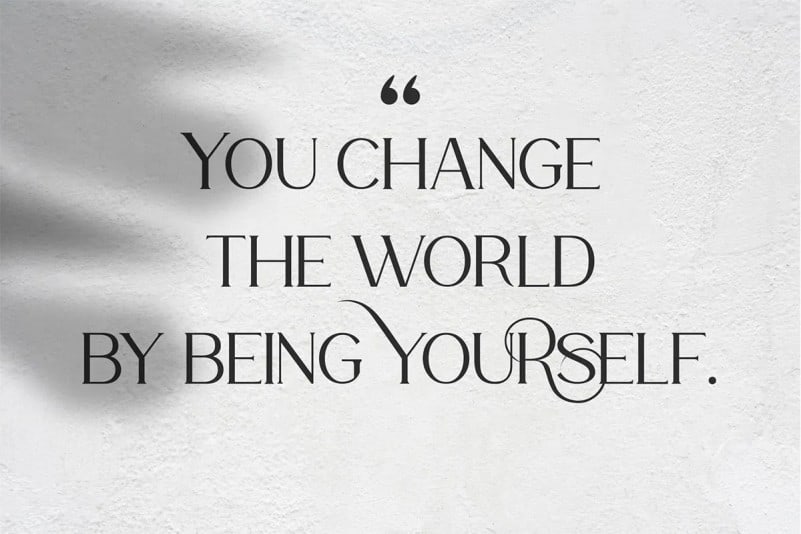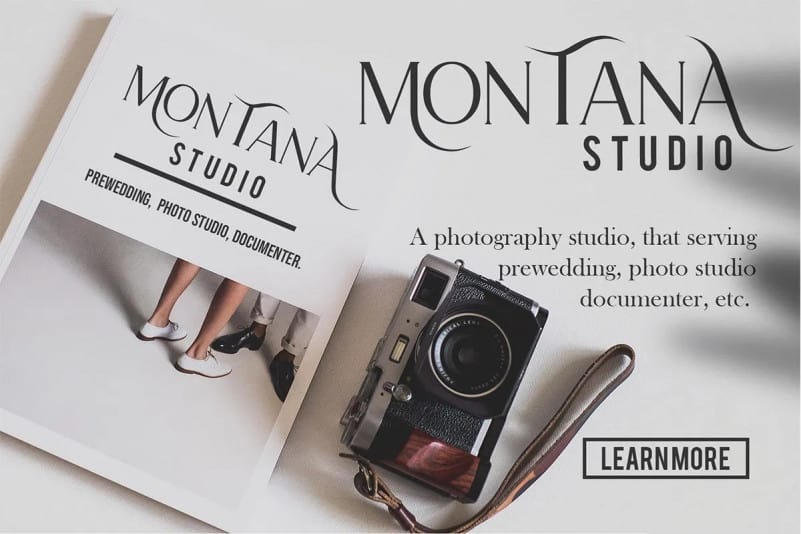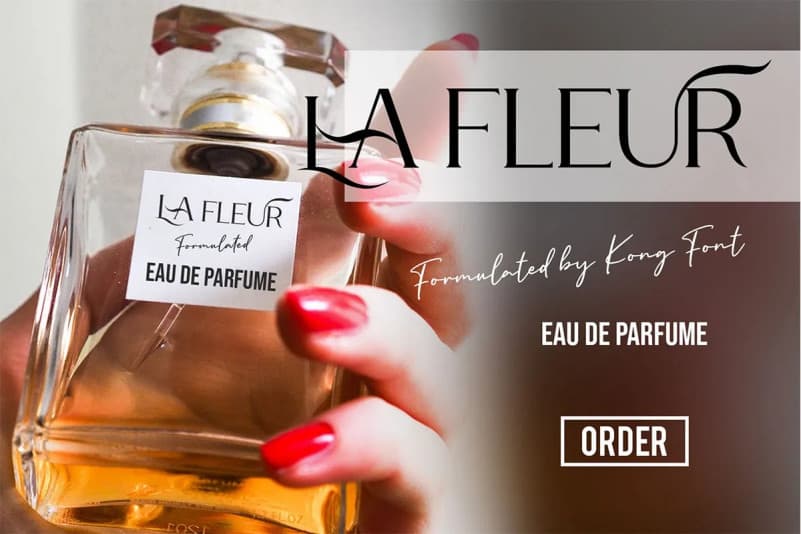
La Fleur Serif Font is a magical modern vintage font will stylistic alternates and beautiful cutout ligaturs. It’s designed and shared by fontkong. With beautiful stylistic alternets and ligatures the font will be you best choice for both Text type and Display Type. This typeface is designed to fill the text gaps between serif text lines.